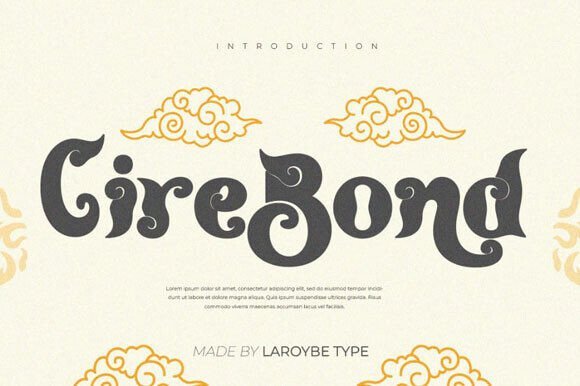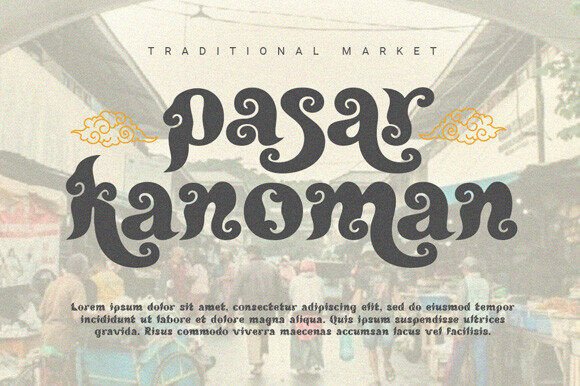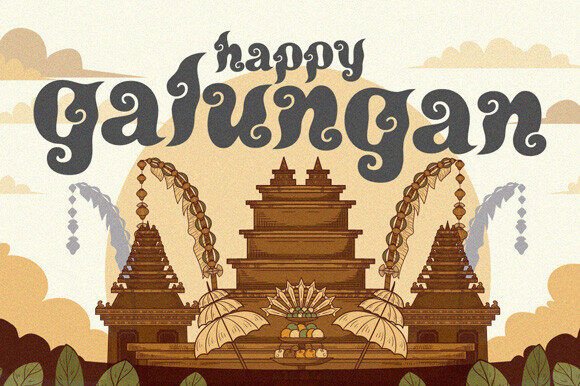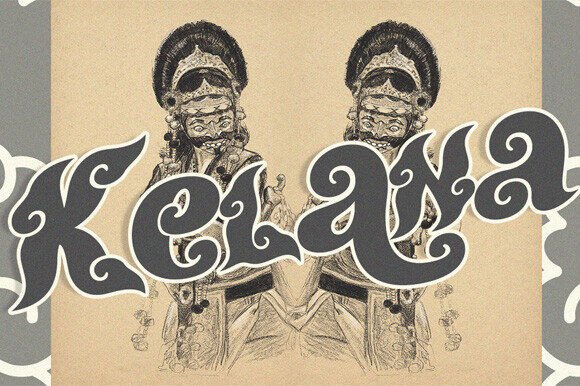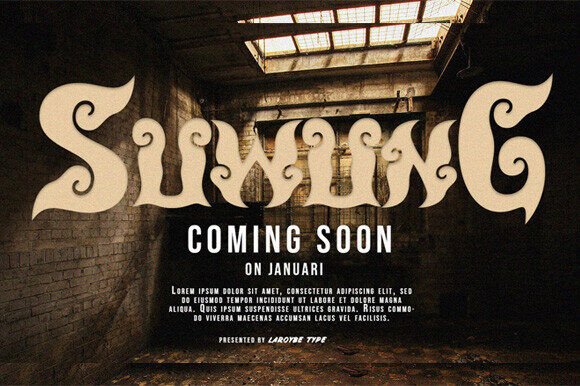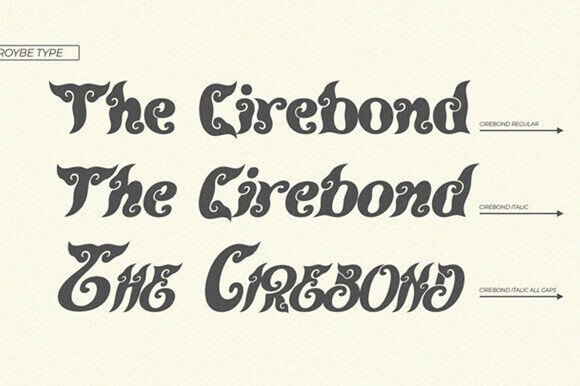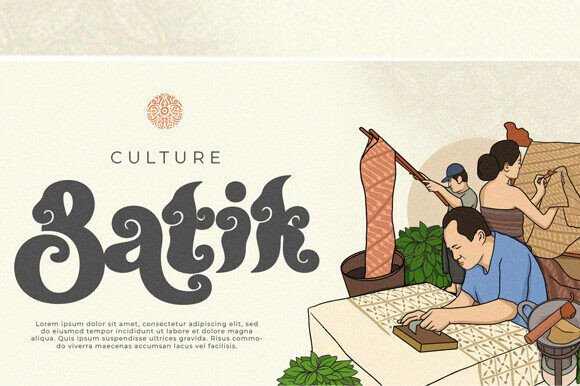
Cirebond Font: Bringing Cultural Heritage to Life
Imagine strolling through the bustling streets of Cirebon, surrounded by vibrant batik patterns and rich cultural heritage. The Mega Mendung design, in particular, catches your eye, its intricate motifs and serene beauty a true reflection of the city’s wisdom and traditions. As a designer, you know that fonts can evoke emotions and convey meaning, and that’s exactly what Cirebond Font aims to achieve.
Cirebond Font is a display font inspired by the iconic Mega Mendung batik pattern, combining traditional elements with a modern touch. This unique blend of cultures makes it a valuable asset for designers seeking to infuse their work with a strong and meaningful character. Whether you’re working on a branding project, creating posters, or designing packaging, Cirebond Font is the perfect choice to bring the essence of Cirebon into your creative works.
Cirebond Font Key Features
- Unique Characteristics: Cirebond Font features a unique blend of modern and vintage elements, with intricate details and subtle texture, making it an ideal choice for designers seeking a distinctive look.
Cirebond Font Review
Cirebond Font is a unique and eye-catching font that can add a touch of elegance to any design project. ✨ The bold and curved lines of this font make it perfect for creating a sense of luxury and sophistication. I appreciate how it’s available in various weights and styles, giving designers the flexibility to experiment with different looks.
- ✨ Wide range of weights and styles, making it suitable for various design projects
- ✨ Unique and elegant design that adds a touch of sophistication
However, there are some limitations to consider. ⚠️ The font may not be suitable for projects that require a clean and minimalist look, as the bold lines and curves can be overwhelming. Additionally, some users may find the font difficult to read in smaller sizes, particularly in digital applications.
Overall, I think Cirebond Font is a great addition to any designer’s toolkit. While it may not be perfect for every project, it’s definitely worth considering for designs that require a touch of luxury and elegance. With its unique design and wide range of weights and styles, it’s a versatile font that can add a lot of value to your designs.
Getting the Most Out of Cirebond Font
For optimal results, use Cirebond Font in conjunction with bold colors and clean lines. Experiment with different font sizes and styles to add visual interest to your designs. You can also pair Cirebond Font with other modern fonts for a unique and professional look.
Cirebond Font is ideal for:
- Modern graphics and social media posts
- Professional presentations and documents
- Minimalist branding and packaging designs